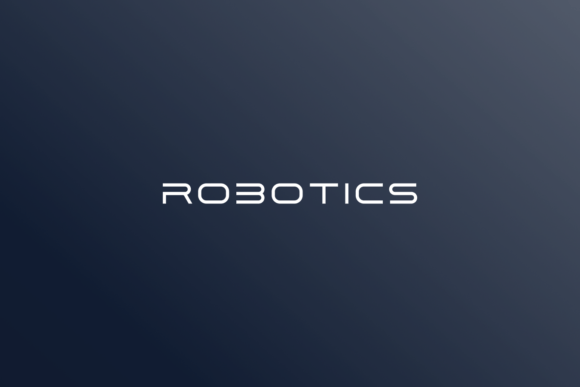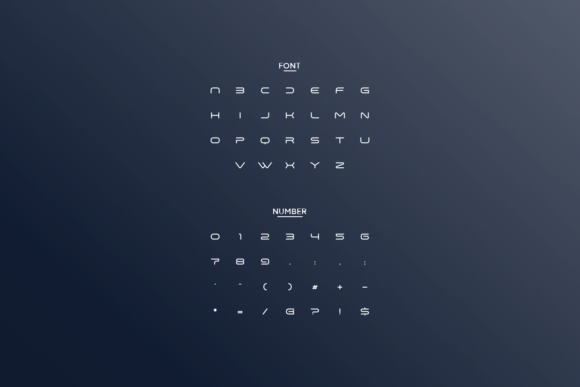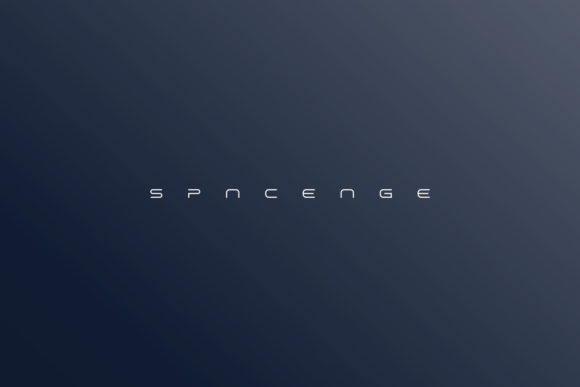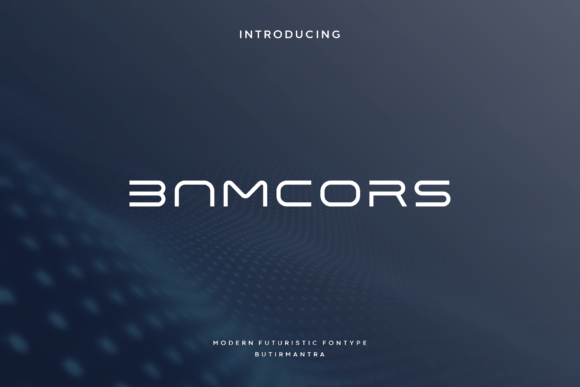
The Perfect Font for Your Next Design Project
As a designer, there’s nothing quite like the thrill of stumbling upon the perfect font for a project. You’re brainstorming ideas, scrolling through font libraries, and suddenly, it hits you – the perfect combination of style and sophistication that elevates your design from good to great. This is exactly what happens when you come across the Bamcors Font.
Bamcors Font is a sleek and modern display font that’s tailor-made for headlines, branding, and logo designs. Its simple yet elegant look makes it a standout choice for designers looking to add a touch of class to their work. With its smooth angular shape, Bamcors Font is the perfect addition to any design project, and its versatility makes it a valuable asset for any designer’s toolkit.
Bamcors Font Key Features
- Unique Characteristic: Unique blend of modern and traditional elements, making it suitable for various design projects
Bamcors Font Review
At first glance, Bamcors Font seems like a great option for designers looking for a modern and stylish sans-serif font. Here are some things that work well: ✨
- Unique character set: Bamcors Font has a distinctive character set that sets it apart from other sans-serif fonts.
- Wide range of weights: The font comes in a variety of weights, making it easy to find the perfect fit for your design.
- Excellent legibility: Bamcors Font is highly legible, even at small font sizes.
- Not ideal for small text: While Bamcors Font is highly legible, it can be a bit cumbersome when used in very small text sizes.
- Limited language support: The font may not support as many languages as some other fonts, which could be a problem for global brands.
- No italics: Unfortunately, Bamcors Font does not come with italics, which can limit its use in certain design situations.
Overall, Bamcors Font is a solid choice for designers who want a modern and stylish sans-serif font. While it has some limitations, its unique character set and wide range of weights make it a great option for many projects.
Tips for Getting the Most Out of Bamcors Font
For best results, use Bamcors Font in combination with bold or italic styles to add emphasis.
Use Bamcors Font in conjunction with other fonts to create a unique and eye-catching design.
Bamcors Font is ideal for use in:
– Headings and titles
– Digital signage and displays
Alternatives to Bamcors Font
Great Vibes is a beautiful, elegant script font perfect for creative projects. It’s ideal for use in logos, branding, and advertising materials where a touch of sophistication is required.
Great Vibes is similar to Bamcors Font in its cursive style, but it has a more refined and polished look. While Bamcors Font is more playful, Great Vibes is more professional and elegant.
Carolyna Pro is a modern script font with a touch of whimsy. It’s perfect for use in fashion, beauty, and lifestyle branding, as well as in creative projects where a unique and eye-catching font is needed.
Carolyna Pro is more delicate and feminine compared to Bamcors Font. While Bamcors Font has a more casual and playful feel, Carolyna Pro is more sophisticated and elegant.
Alex Brush is a beautiful, elegant script font perfect for use in creative projects, such as logos, branding, and advertising materials. It’s ideal for those who want a font that’s both sophisticated and eye-catching.
Alex Brush is similar to Bamcors Font in its cursive style, but it has a more refined and polished look. While Bamcors Font is more playful, Alex Brush is more elegant and sophisticated.
Didact Gothic
Didact Gothic is a modern, geometric font with a touch of sophistication. It’s perfect for use in creative projects, such as logos, branding, and advertising materials, where a unique and eye-catching font is needed.